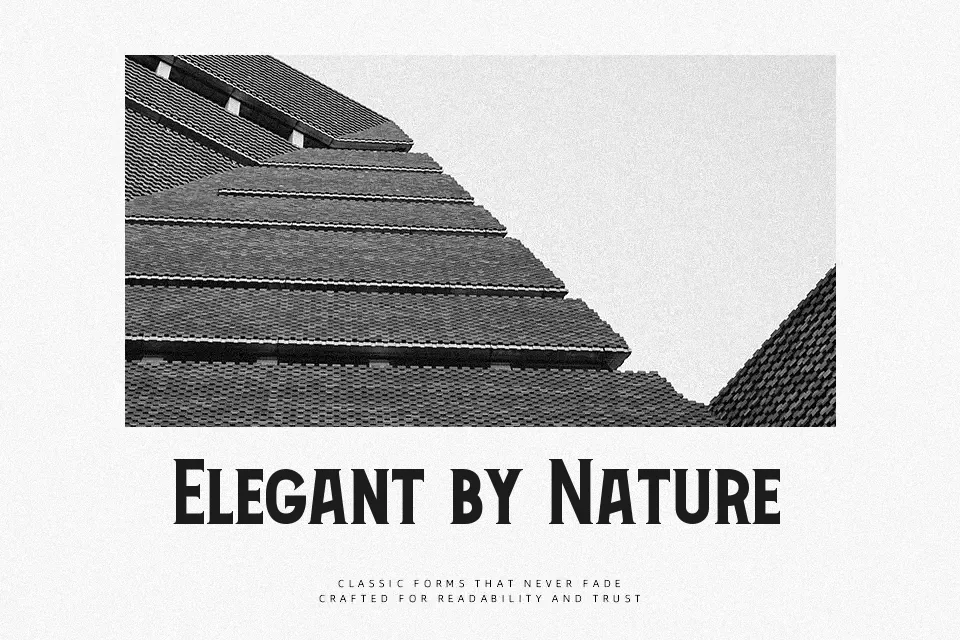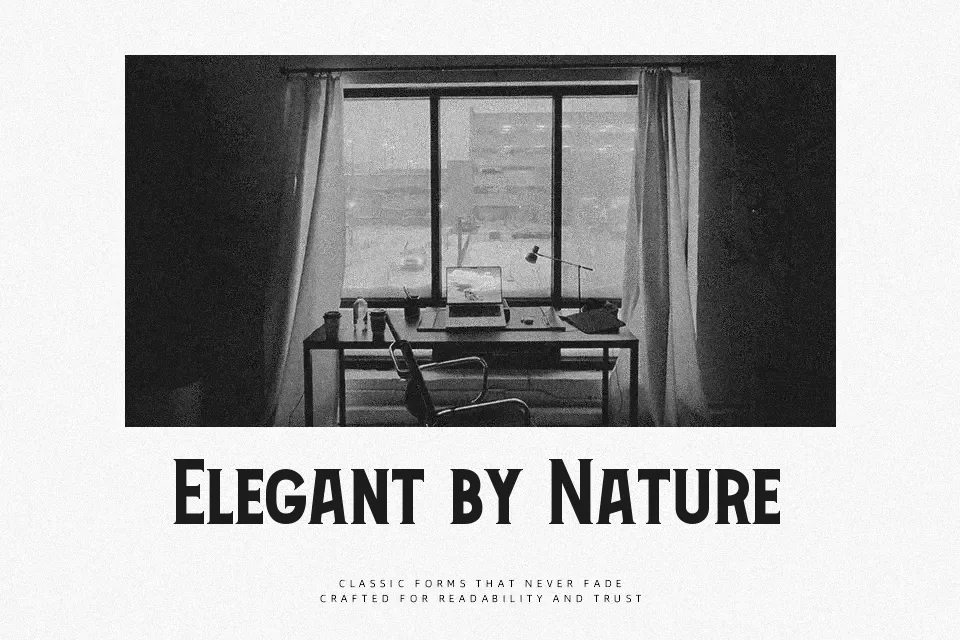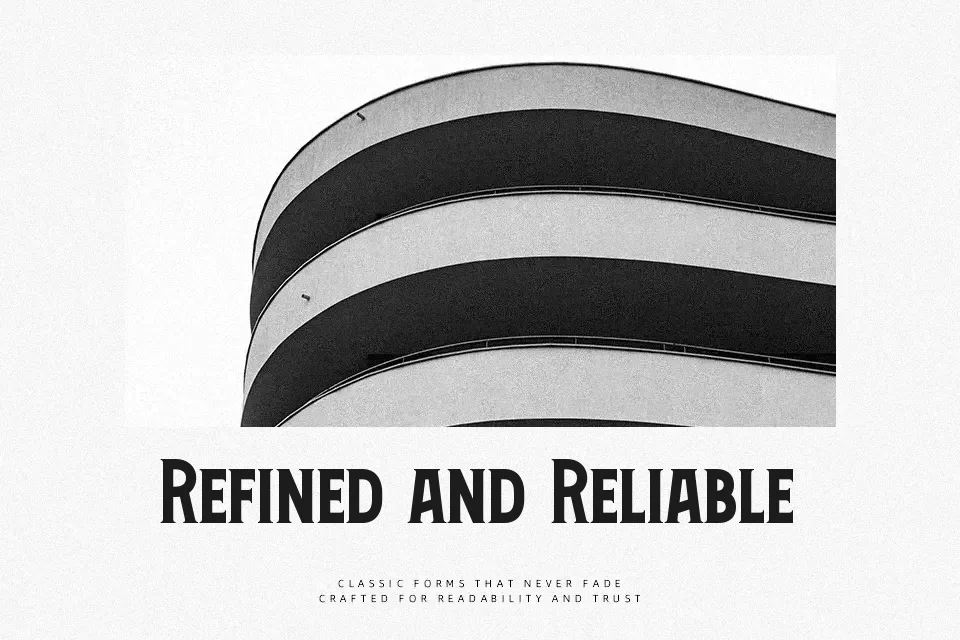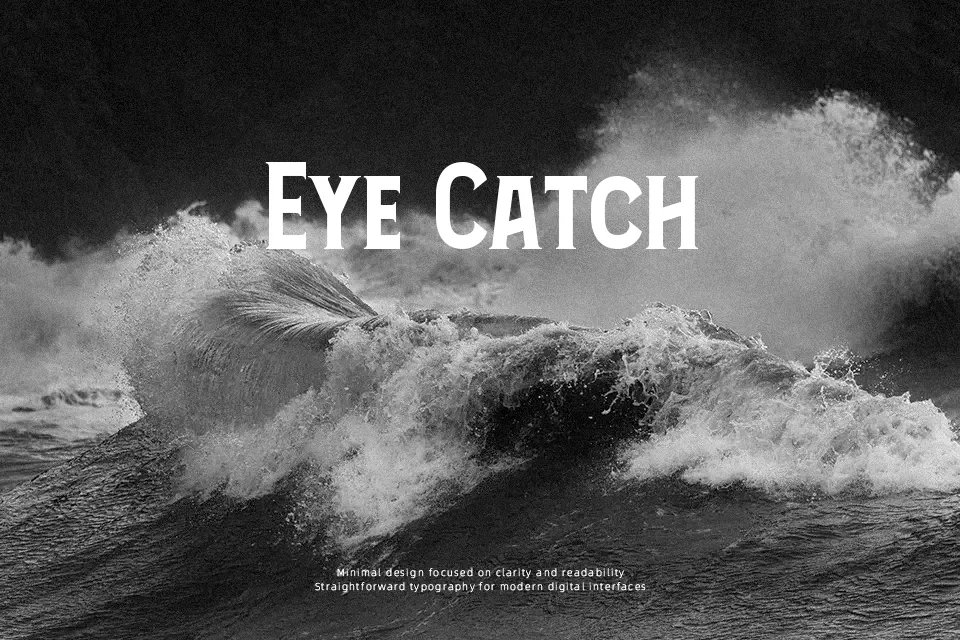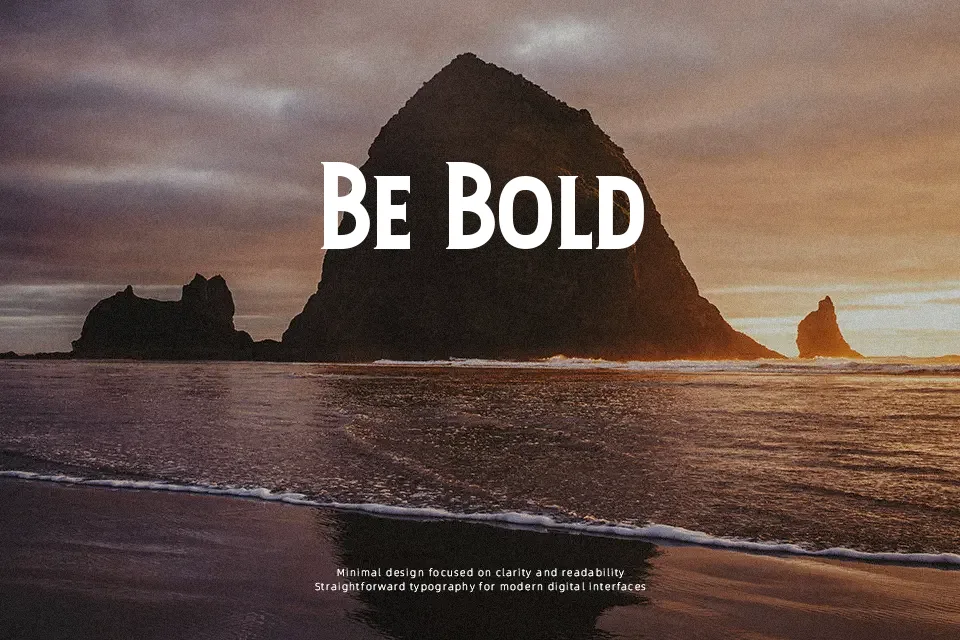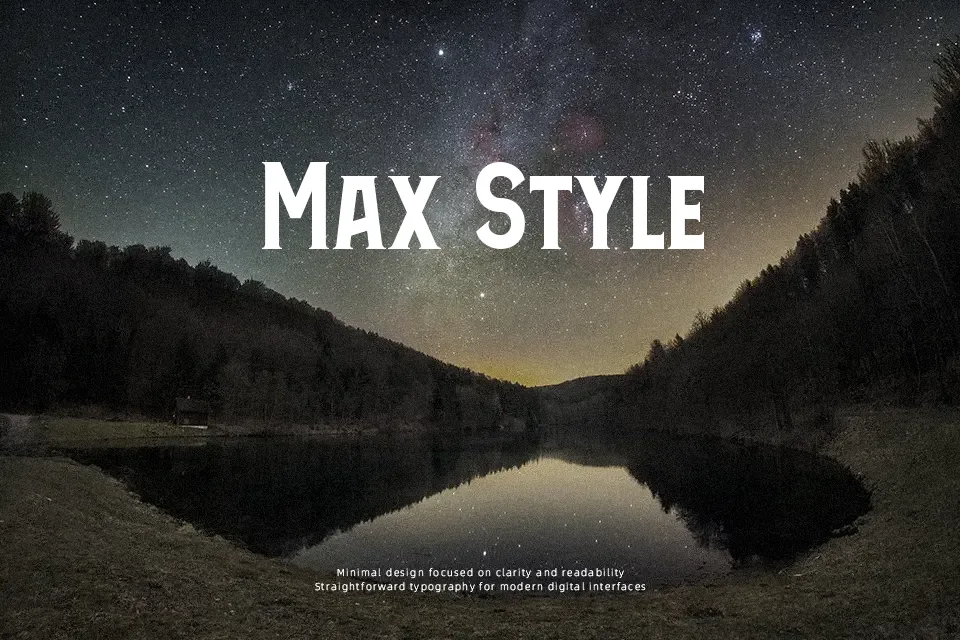
Sarkowik Font
Sarkowik Font is an ornate decorative display typeface characterized by sharp mid-stem spurs, dramatic stroke weight transitions, and sweeping Victorian-inspired terminals. The dense letterforms feature tight proportional spacing and intricate contours that command visual focus across large headlines and vintage branding layouts. While the pronounced structural flourishes create immediate historical character, fine details tend to close up in smaller sizes, making extended body copy impractical. For optimal legibility, the letterforms function best in short display settings where ample tracking and scale allow the decorative junctions to remain sharp and distinct.
Best For: vintage liquor bottle packaging, retro tattoo parlor signage, Victorian event posters, heritage brand emblems
Not Ideal For: continuous reading passages, small mobile interface copy, tabular financial spreadsheets, dense legal documents
Perfect for branding, headline, and packaging, with a bold and decorative style.